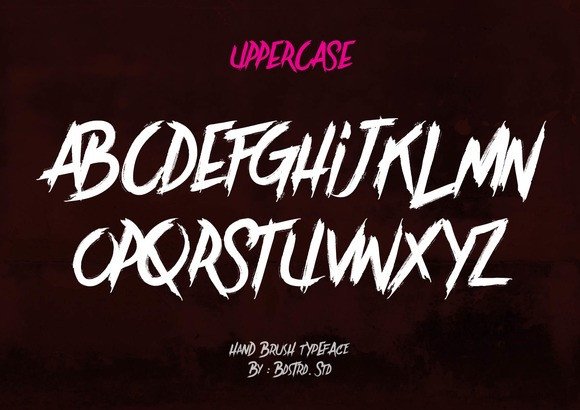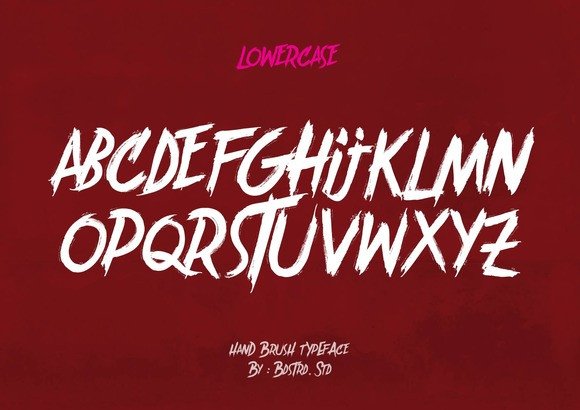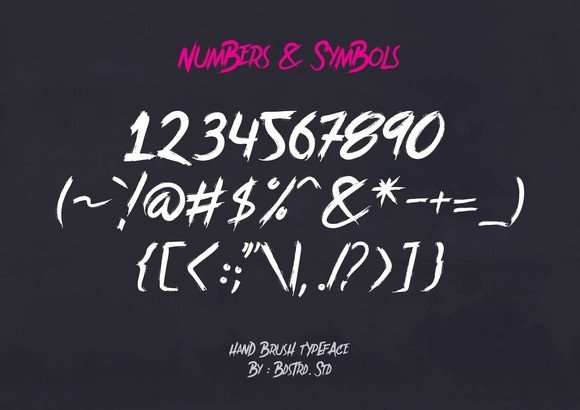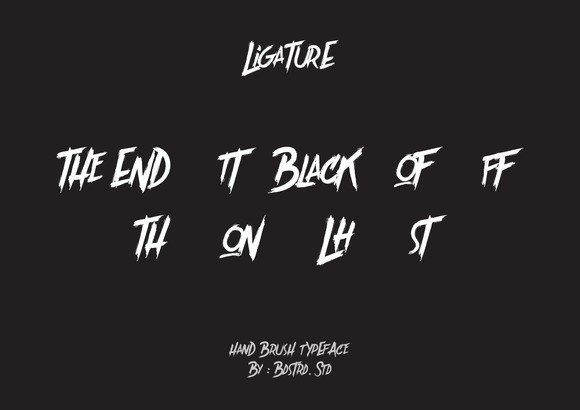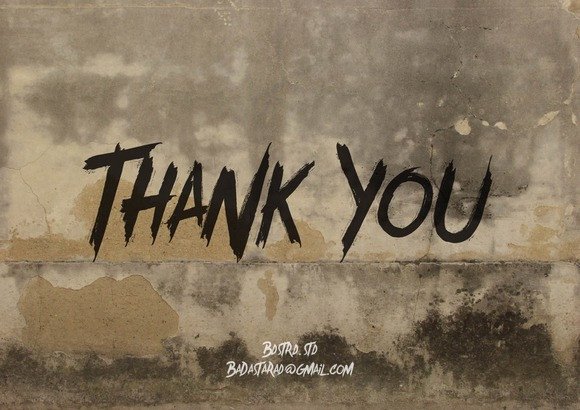
Unleashing the Urban Vibe: Brother in Crime Font
In the realm of typography, fonts inspired by real-life street art have always managed to capture the imagination of designers and crafters alike. One such font that has gained significant attention in recent times is the Brother in Crime font, a brush typeface that draws its inspiration from graffiti found in the slums of Bandung, Indonesia. This article aims to provide an in-depth look at this unique font, exploring its origins, characteristics, and uses.
The Origins of Brother in Crime Font
The Brother in Crime font owes its existence to the streets of Bandung, Indonesia, where graffiti art is a common sight in the slums. The designer, moved by the raw energy and emotion conveyed through this street art, sought to capture its essence in a typeface. By staying true to the original art, the font was born with a distinctly rough feel, reminiscent of the urban landscapes that inspired it.
Characteristics of Brother in Crime Font
Brother in Crime is classified as a brush typeface, which immediately sets it apart from more conventional fonts. Its key characteristics include:
- Rough Texture: The font retains the rough, unpolished texture of graffiti art, giving it an authentic street feel.
- Expressive Strokes: Each letter is crafted with expressive brush strokes, conveying a sense of movement and emotion.
- Urban Aesthetic: The overall aesthetic is distinctly urban, making it perfect for projects that require a gritty, street-wise vibe.
Uses of Brother in Crime Font
The versatility of the Brother in Crime font makes it suitable for a wide range of projects, including:
- Graphic Design: Ideal for posters, flyers, and brochures that require a bold, eye-catching typeface.
- Branding: Perfect for brands looking to convey a rugged, urban image.
- Streetwear and Fashion: Great for designing logos, T-shirts, and other apparel that targets an urban audience.
- Art and Craft Projects: Can be used in various craft projects, such as hand-lettering, stenciling, and graffiti art.
Why Designers and Crafters Love Brother in Crime Font
Designers and crafters are drawn to the Brother in Crime font for several reasons:
- Authenticity: The font’s roots in real graffiti art give it an authenticity that resonates with those looking for unique, genuine designs.
- Expressiveness: The expressive strokes and rough texture allow for a high degree of creativity and personalization in projects.
- Urban Appeal: Its urban aesthetic makes it a popular choice for projects targeting an audience with a street-wise sensibility.
The Brother in Crime font is a remarkable example of how street art can be transformed into a powerful design tool. Its unique blend of rough texture, expressive strokes, and urban aesthetic makes it a valuable asset for designers and crafters looking to add an authentic, gritty vibe to their projects. Whether you’re working on graphic design, branding, or craft projects, the Brother in Crime font is sure to inspire and elevate your work.
In conclusion, the Brother in Crime font stands out as a distinctive and versatile typeface with a rich urban heritage. Its unique characteristics and wide range of applications make it a favorite among designers and crafters seeking to infuse their work with a raw, street-level energy.